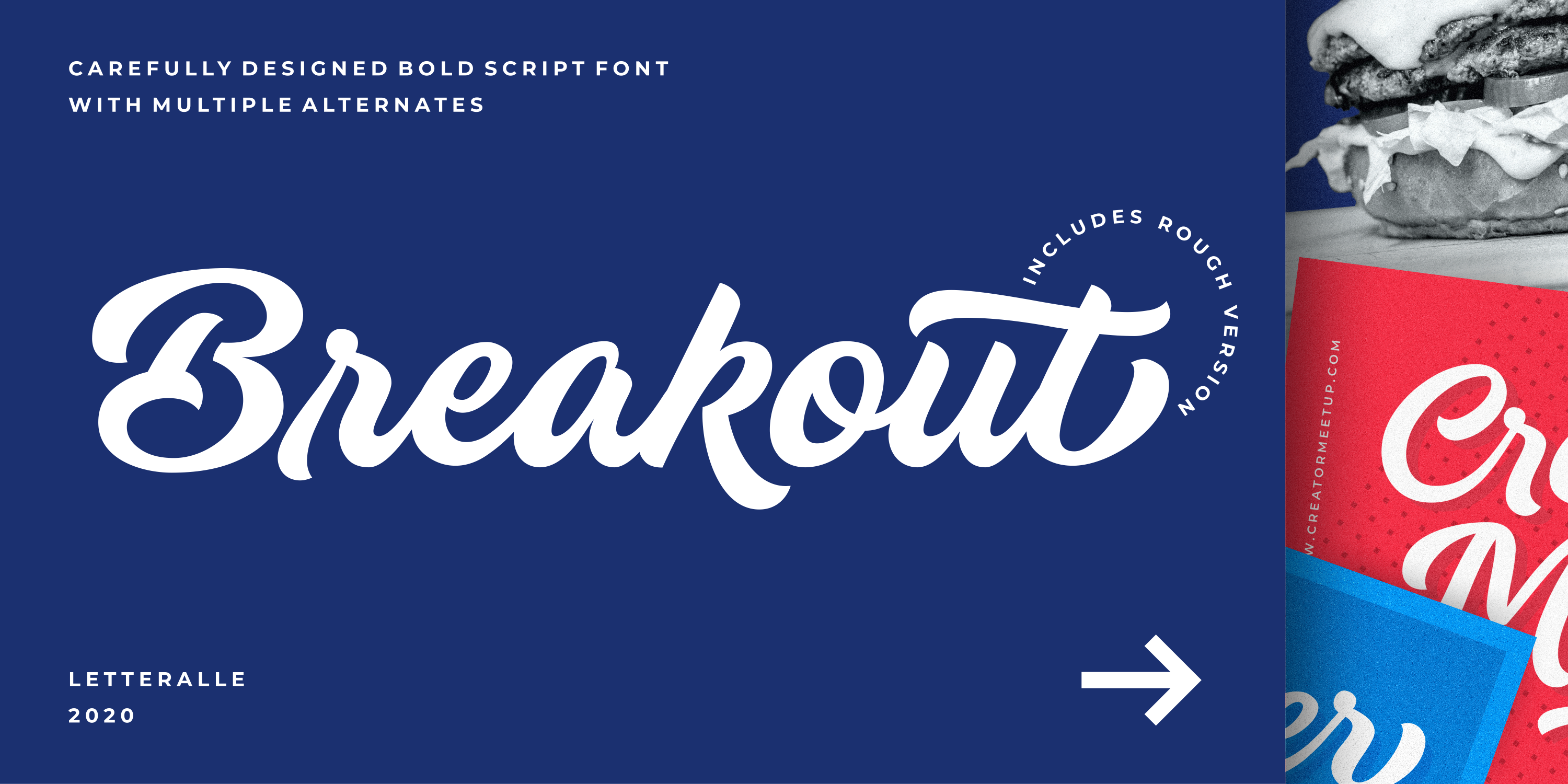
The Breakout Font is perfect for revolutionary startup branding, breakthrough technology logos, innovation conference posters, disruptive business presentations, game-changing product launches, entrepreneurial success campaigns, transformation coaching materials, breakthrough achievement graphics, and revolutionary change management signage.
What makes the Breakout Font so exciting is its explosive breakthrough energy that instantly communicates revolutionary change and paradigm-shifting innovation. This powerful typeface embodies the disruptive force and transformative momentum that defines breakthrough moments and revolutionary achievements, creating an immediate impression of liberation and unstoppable progress. The font's breakout character communicates the bold courage and transformative vision that revolutionary businesses need to attract audiences who embrace radical change and seek breakthrough solutions that shatter conventional limitations.
The Breakout Font family includes Regular weight featuring complete uppercase and lowercase character sets, comprehensive numerical collections, essential punctuation marks, and revolutionary symbols that maintain the breakthrough aesthetic throughout your innovation and transformation-focused design projects.
Disruptive businesses and transformation leaders consistently choose Breakout Font Free Download for projects that require authentic revolutionary appeal and breakthrough communication. This exceptional typeface excels in environments where establishing disruptive credibility and transformation leadership is crucial for attracting change-makers and innovation enthusiasts who value revolutionary thinking and breakthrough solutions. The font's breakout character helps communicate the vision and courage that transformation audiences expect from established change leaders and revolutionary service providers.
The distinctive qualities of Breakout Font reflect the dynamic nature of breakthrough moments where conventional barriers dissolve, new possibilities emerge, and transformative change creates unprecedented opportunities for growth and innovation. Each character demonstrates the explosive energy and directional force that characterizes successful breakthrough initiatives and revolutionary business transformations. The font's proportions and spacing create perfect balance between disruptive power and strategic clarity that modern transformation businesses require for effective change messaging and revolutionary positioning.
Contemporary innovation enterprises appreciate how Breakout Font communicates breakthrough authenticity and revolutionary leadership. Whether designing materials for disruptive technology companies, creating branding for transformation consulting services, or developing marketing for breakthrough innovation programs, this font delivers the revolutionary character that distinguishes authentic change agents from incremental improvement providers. The typeface works exceptionally well for businesses emphasizing paradigm shifts, breakthrough thinking, and the explosive appeal of revolutionary change and transformative innovation.
The versatility of Breakout Font extends across multiple transformation applications and revolutionary marketing initiatives. Innovation labs utilize its breakthrough character for disruptive research presentations and revolutionary development communications. Change management consultants choose it to communicate their expertise in breakthrough organizational transformation and revolutionary business evolution. Breakthrough achievement coaches rely on its powerful appearance to attract individuals seeking revolutionary personal transformation and paradigm-shifting life changes.
Digital innovation platforms benefit from Breakout Font's optimized impact across various breakthrough applications and revolutionary communication channels. The font maintains its breakout character whether displayed on transformation websites, mobile innovation apps, or high-energy revolutionary streaming platforms. This technical strength ensures consistent brand presentation across all breakthrough communication platforms and revolutionary engagement scenarios.
The psychological impact of Breakout Font resonates with audiences who embrace revolutionary change and refuse to accept conventional limitations in their pursuit of breakthrough achievements and transformative success. The typeface serves as a visual catalyst for revolutionary thinking and breakthrough action that helps transformation businesses build passionate relationships with change-makers who demand revolutionary solutions and breakthrough results. This connection to revolutionary courage and breakthrough vision makes it invaluable for establishing legendary transformation brand identities.
Innovation marketing specialists and breakthrough branding professionals recognize Breakout Font as an essential tool for authentic revolutionary positioning. The font captures the essence of breakthrough moments while making revolutionary change accessible to contemporary transformation businesses who want to communicate their commitment to paradigm-shifting innovation, breakthrough solutions, and the explosive power of revolutionary thinking in today's transformation-driven marketplace.